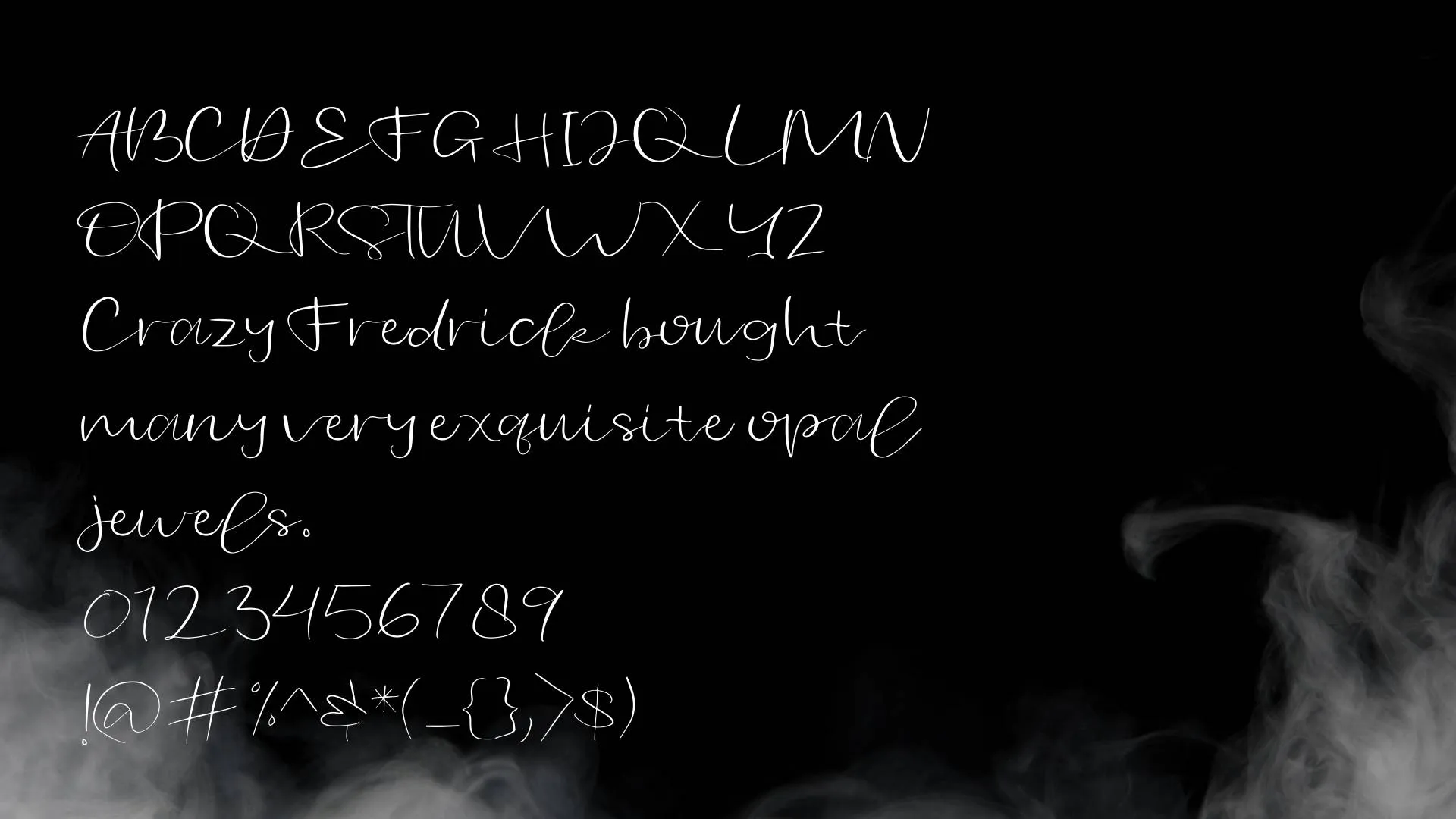
Cinamon Font is designed by a designer named “Font Bundles”. It has 427 unique Glyphs and 289 characters that give a new look in designs. This font is free for personal use.
This font was designed to make a creative logo. The attributes of This font can easily be readable and they may look very attractive in logo design. This font is easily available and used in adobe editing software like photoshop, illustrator, and many more.
Cinamon Font Info
| Name | Cinnamon Font |
| Designer | Font Bundles |
| Style | Calligraphy |